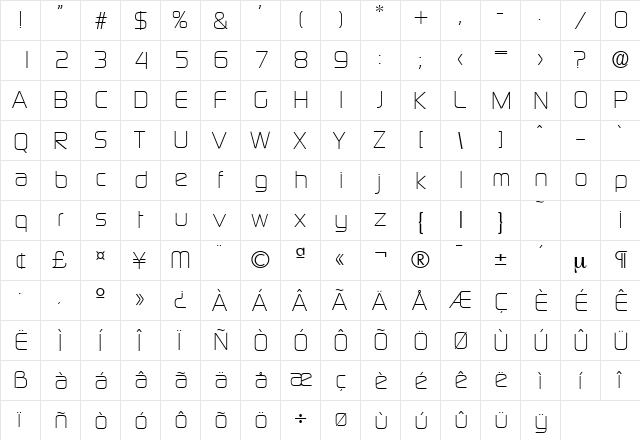
Digital-Serial DB Regular
Design Context for Digital-Serial DB Typeface
Digital-Serial DB channels digital-age aesthetics through its sharp, structured letterforms — ideal for brands that want to signal innovation.
Pro Tip: Use Digital-Serial DB in combination with a neutral sans for body text. Let it define the brand voice in headlines while keeping reading comfortable elsewhere.